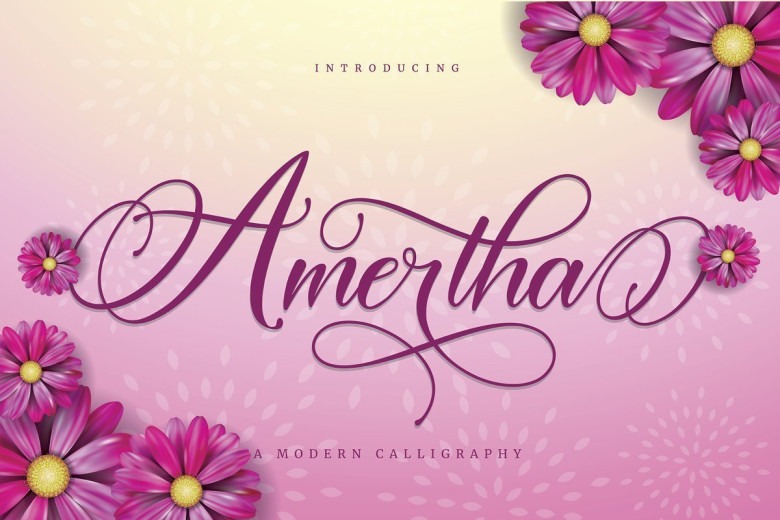
Amertha Calligraphy Script Font
Amertha Script Font is an elegant calligraphy font that has a casual and luxurious style. This is an upright script font that is made slowly and thorough which aims to convey the character of the writing that is elegant, neat, simple, graceful, firm and still stylish.
With a style like this, this font will be suitable in use for logo’s, branding projects, home-ware designs, product packaging, mugs, quotes, posters, shopping bags, logo’s, t-shirts, book covers, name card, invitation cards, greeting cards, and all your other lovely projects.